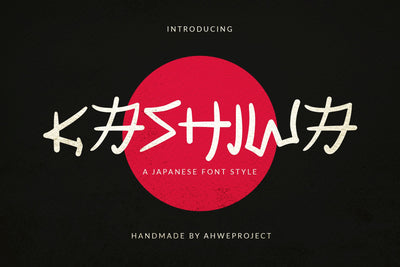
Kashiwa - Japanese Style Display Font
Kashiwa is an interesting japanese styled display font. Use this font for any crafting project that requires a personalized look!